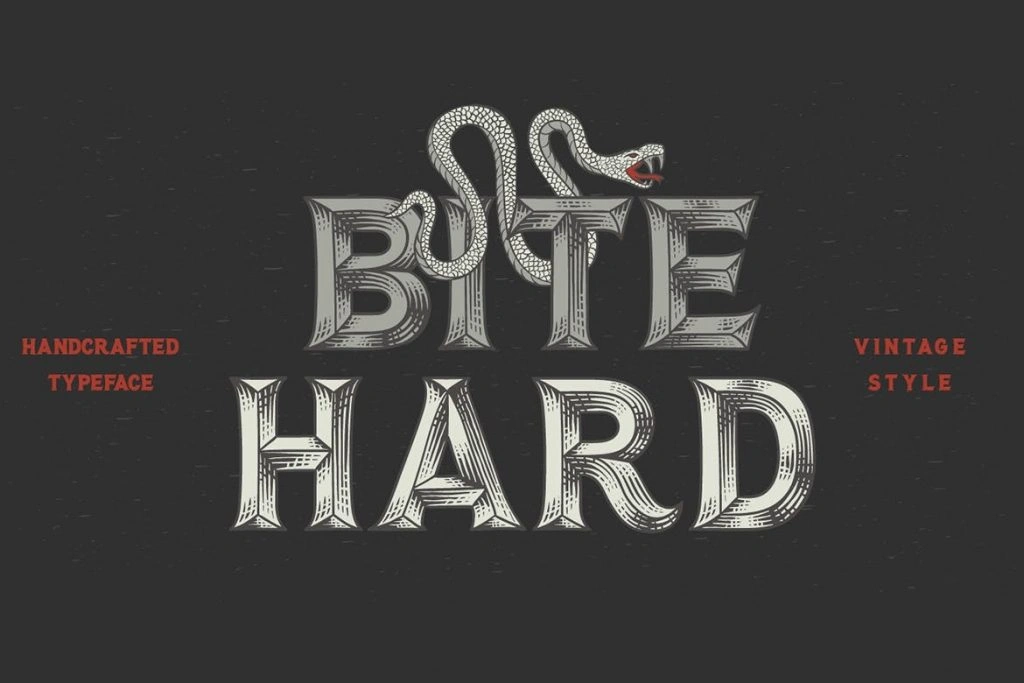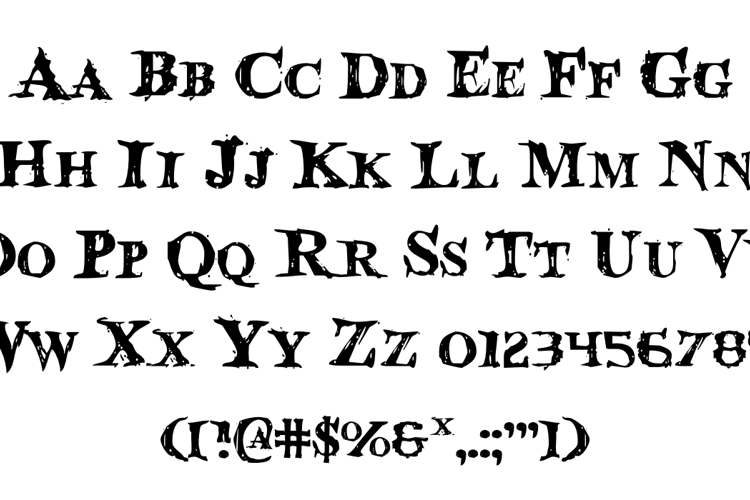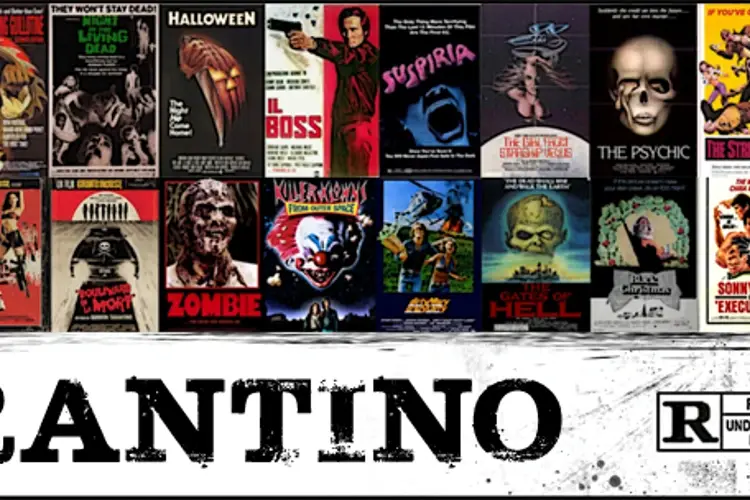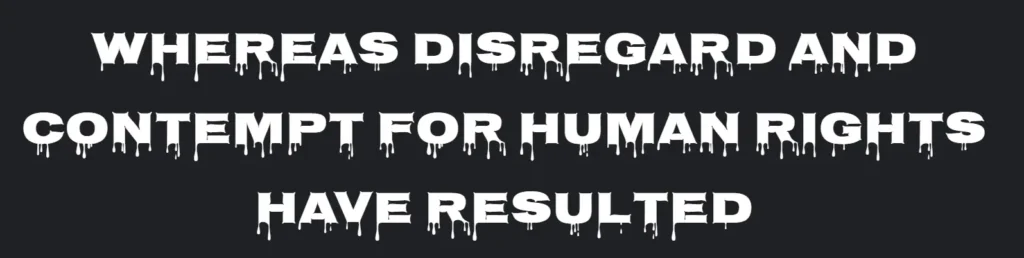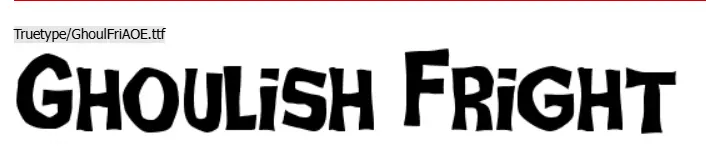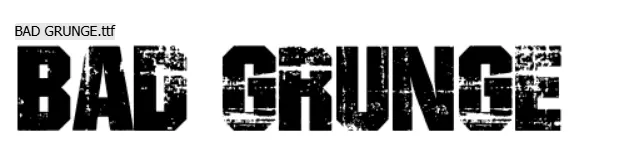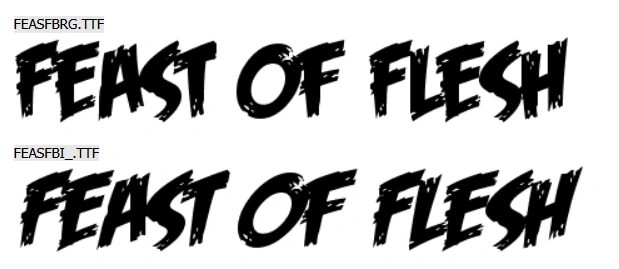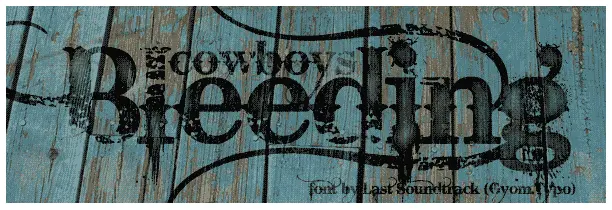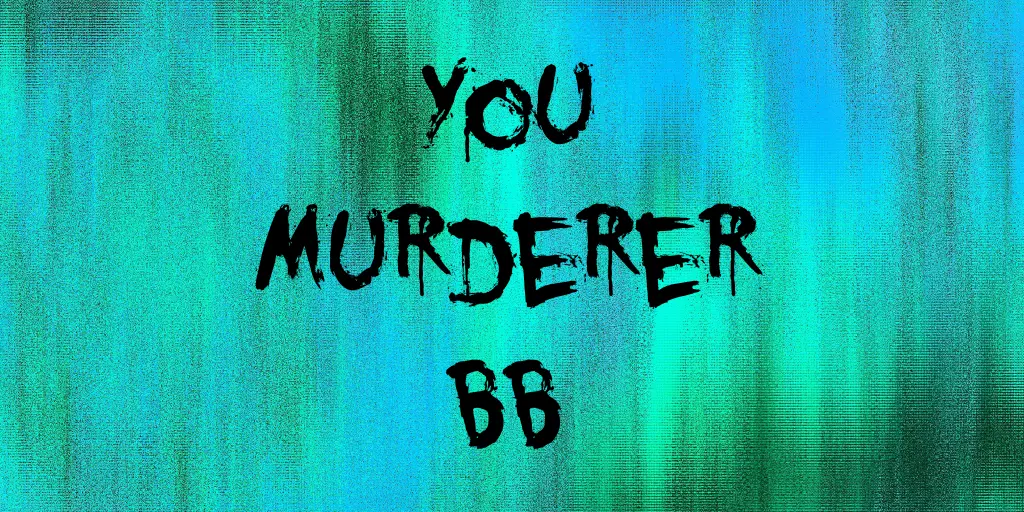
Top 15 Freaky Font for Bold and Unique Designs
Top 15 Freaky Fonts for Bold and Unique Designs
Welcome to the world of freaky fonts! If you want to inject boldness and uniqueness into your designs, you’re in the right place. Freaky fonts have the power to transform a simple design into something eye-catching and unforgettable. Whether you’re working on Halloween projects, creating edgy posters, or just want to add a touch of the extraordinary to your work, these fonts are your go-to solution.
I’ve always found that the right font can make all the difference. Companies like Nike, Coca-Cola, and Disney have mastered the art of using distinctive fonts to update their branding. Now, it’s your turn to discover how you can use freaky fonts to make your designs stand out. Let’s dive into the top 15 freaky fonts that will elevate your projects to the next level.
What are Freaky Fonts?
Freaky fonts are a category of typefaces designed to evoke a sense of unease, thrill, or excitement. They often feature unconventional designs, such as distorted shapes, spiked edges, dripping effects, or a hand-drawn aesthetic. These fonts break away from traditional, clean lines to create a dramatic and eye-catching effect, making them ideal for designs that aim to stand out and leave a lasting impression.
Freaky fonts are typically used in contexts where a bold statement is necessary. They can be found in horror movie posters, Halloween decorations, edgy branding campaigns, and any design project that benefits from a unique and impactful visual element. The irregular and sometimes chaotic nature of these fonts makes them perfect for capturing attention and conveying strong emotions.
Why and When to Use Freaky Fonts for Your Designs
Why Use Freaky Fonts?
1. Create Impact: Freaky fonts grab attention and make a design memorable. Their bold and unusual style stands out in a sea of conventional typefaces, ensuring that your design is noticed.
2. Set the Mood: These fonts are excellent at conveying specific emotions or themes. Whether it’s horror, excitement, mystery, or chaos, freaky fonts help set the right tone for your project.
3. Enhance Branding: Unique fonts can become a signature element of a brand. Companies like Nike and Disney have used distinctive typefaces to create a strong brand identity. Similarly, incorporating freaky fonts can help differentiate a brand and make it more recognizable.
4. Versatility in Design: From posters and invitations to digital media and merchandise, freaky fonts can be adapted to a variety of design needs. Their flexibility allows designers to use them in multiple contexts, ensuring consistency across different media.
When to Use Freaky Fonts?
1. Seasonal Events: Halloween is the most obvious occasion for using freaky fonts. They can be used in party invitations, event flyers, and decorations to create a spooky atmosphere.
2. Horror and Thriller Projects: Whether it’s a movie poster, book cover, or promotional material for a haunted house, freaky fonts are perfect for anything related to horror or suspense.
3. Edgy and Alternative Branding: Brands that want to convey a rebellious, unconventional image can benefit from using freaky fonts. They add a raw and authentic feel to the branding, making it more appealing to certain demographics.
4. Unique Merchandise: From T-shirts to tattoos, freaky fonts can be used to create distinctive and eye-catching merchandise. Their unique style ensures that the products stand out and attract attention.
5. Social Media and Digital Content: In the crowded space of social media, standing out is crucial. Freaky fonts can make thumbnails, ads, and posts more engaging and clickable, increasing viewer interaction.
Top 15 Free Freaky Fonts For Your Designs
1. Creepster
Creepster freaky font
Creepster is a freaky font that immediately brings to mind classic horror films and Halloween festivities. Its dripping, eerie letters make it a standout choice for creating spine-chilling designs. Perfect for party invitations, haunted house flyers, or spooky decorations, Creepster saves you the effort of manually adding creepy effects. This font sets the tone for fear and excitement, making it a go-to for any Halloween-related project. Brands like Universal Studios have used similar styles in their horror movie promotions, adding an authentic touch to their fear-inducing designs.
2. Zombie Holocaust
Zombie Holocaust freaky font
Zombie Holocaust embodies the essence of a post-apocalyptic world with its rough, jagged edges that mimic zombie scratches. Ideal for horror movie titles and event posters, this font creates a sense of dread and chaos effortlessly. It helps designers convey a narrative of horror and survival, perfect for thrilling the audience. Similar fonts have been used in blockbuster zombie movies like “World War Z,” enhancing the terror and suspense.
3. Nosifer
Nosifer freaky font